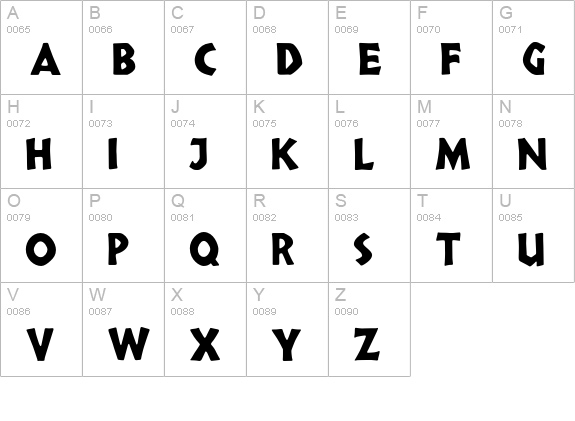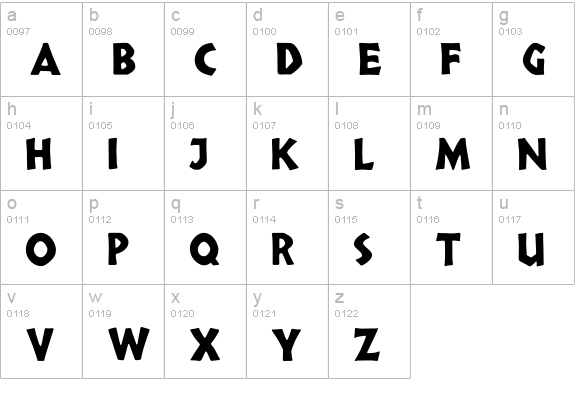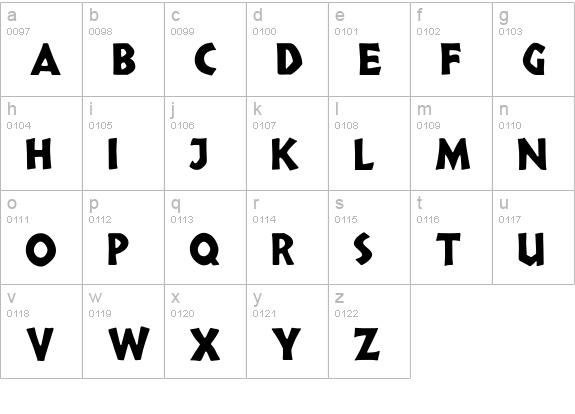
Chieftan-Solid Font Details
Chieftan-Solid font exudes strength and authority with its bold and impactful design. This font is perfect for making a statement and commanding attention in any project. Its solid and sturdy appearance makes it ideal for headlines, titles, and branding materials. With its clean lines and distinctive style, Chieftan-Solid font adds a touch of sophistication to any design. Best of all, Chieftan-Solid font is available for free download at FontsMarket.com. Take advantage of this opportunity to enhance your projects with this powerful and eye-catching font. Download Chieftan-Solid today and make a lasting impression with your designs.